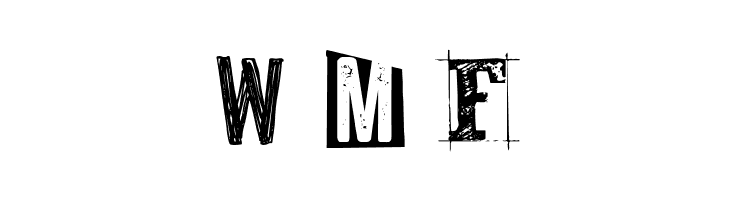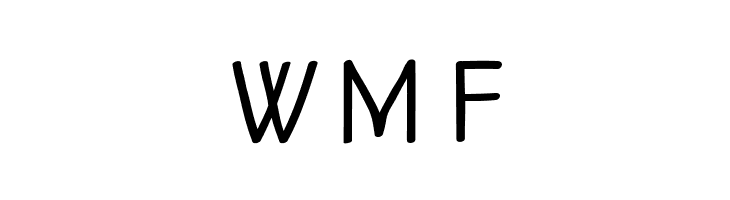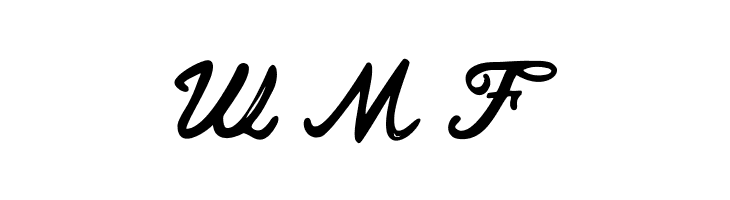
A playful, handwritten font with smooth curves and a dynamic style.
An ornate and decorative script font with elegant, flowing lines and intricate swashes.
A playful, casual handwritten font with a school-like, dynamic feel.
A bold, narrow font with tall characters and tight spacing, perfect for modern designs.
A flowing, cursive font with interconnected characters and a handwritten style.
A bold, distressed font with a rugged, grunge aesthetic.
A bold, distressed font with a grunge, textured appearance.
A whimsical and decorative font with playful, curly letterforms.
A distressed, vintage typewriter-style font with a bold, textured appearance.
A bold, brush-like font with a hand-drawn, expressive style.
A playful, bold font with a hand-drawn, whimsical style.
A decorative font with characters made of jewel-like shapes, offering a whimsical and artistic style.
A bold, decorative font with intricate, retro-inspired patterns.
A mosaic-patterned font with a playful and artistic style.
A bold, dynamic font with diagonal stripe patterns, ideal for impactful designs.
A decorative and artistic font with intricate patterns and a bohemian style.
A bold, eclectic font with a punk rock aesthetic and distressed textures.
A bold, distressed font with a vintage, hand-crafted appearance.
A modern, bold, and slightly slanted font with a geometric structure.
A bold, distressed font with a grunge, textured style.
A bold, distressed font with a grunge, punk aesthetic.
A bold, decorative font with a vintage circus-inspired dotted outline.
A bold, textured, hand-drawn font with a playful and casual style.
A rugged, distressed font with a vintage, typewriter-like appearance.
A bold, distressed font with a punk rock, hand-painted style.
A bold, distressed font with a dripping effect, perfect for horror themes.
A playful, hand-drawn font with rounded edges and a friendly style.
A playful, hand-drawn font with rounded edges and consistent spacing.
A textured, chalk-like font with a playful, hand-drawn style.
A bold, outlined font with a strong, three-dimensional appearance.
A bold, distressed font with a rugged, grunge aesthetic.
A bold, distressed font with a vintage letterpress style.
A bold, decorative font with a grunge texture and vintage appeal.
A decorative font with jungle-inspired, vine-like embellishments.